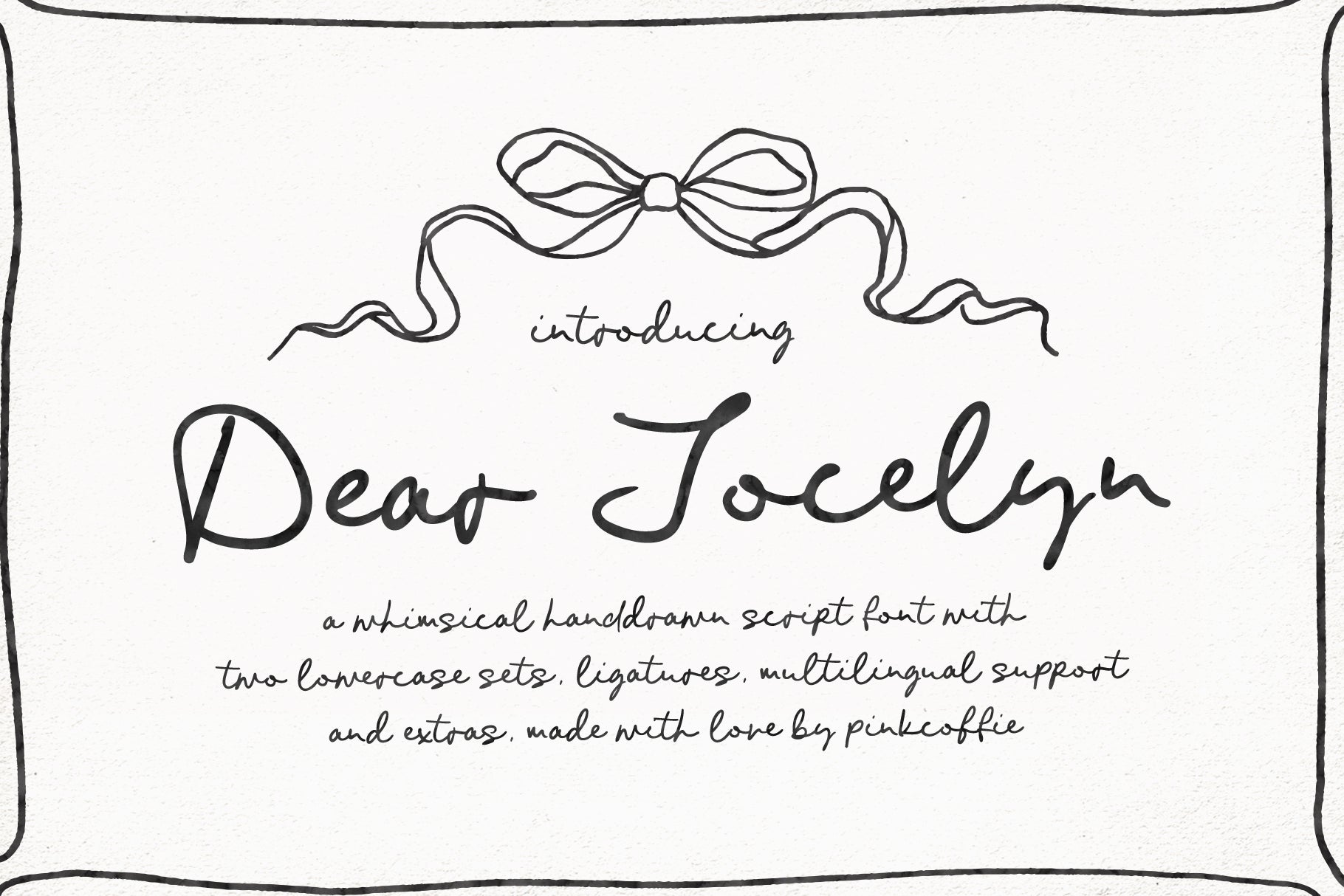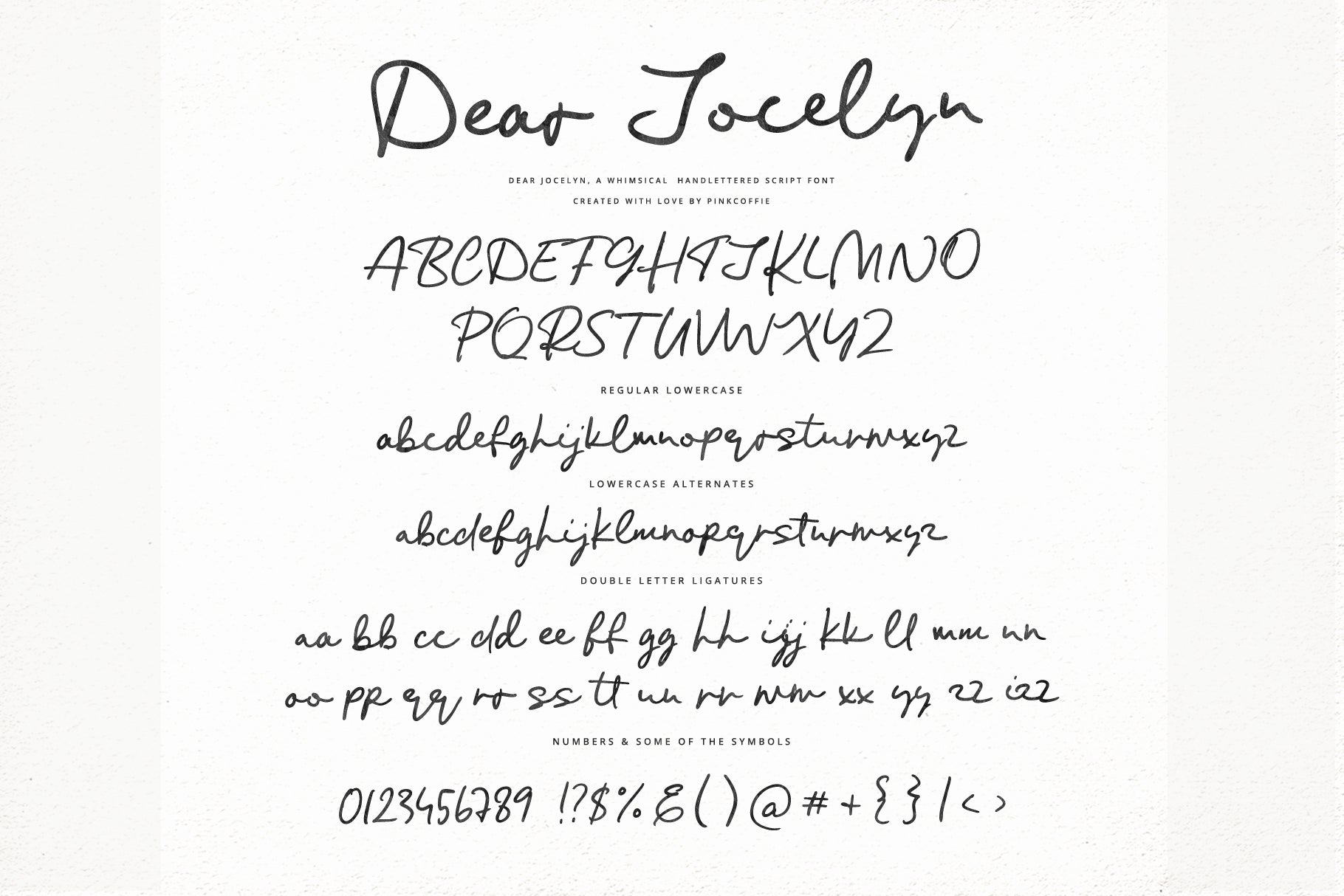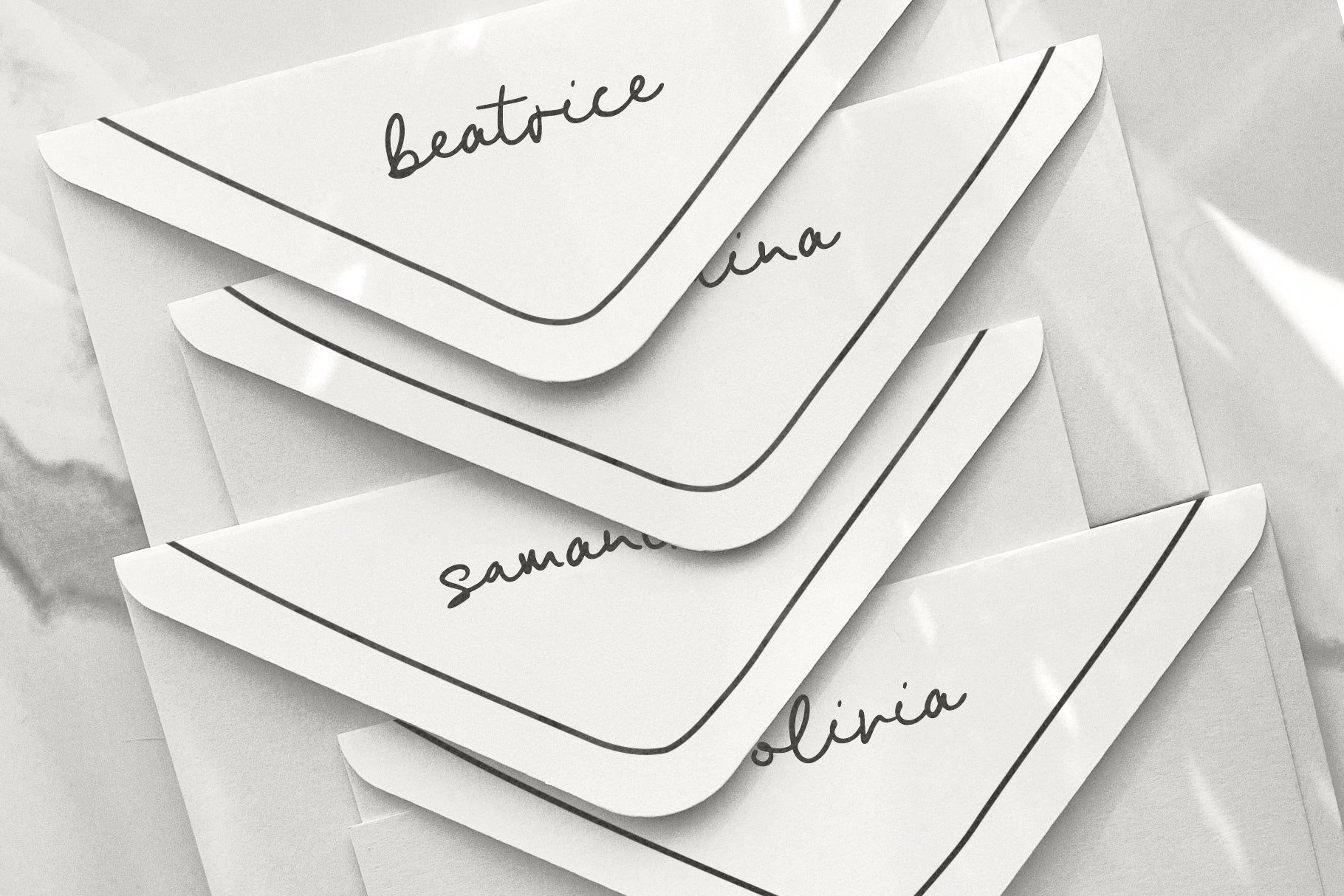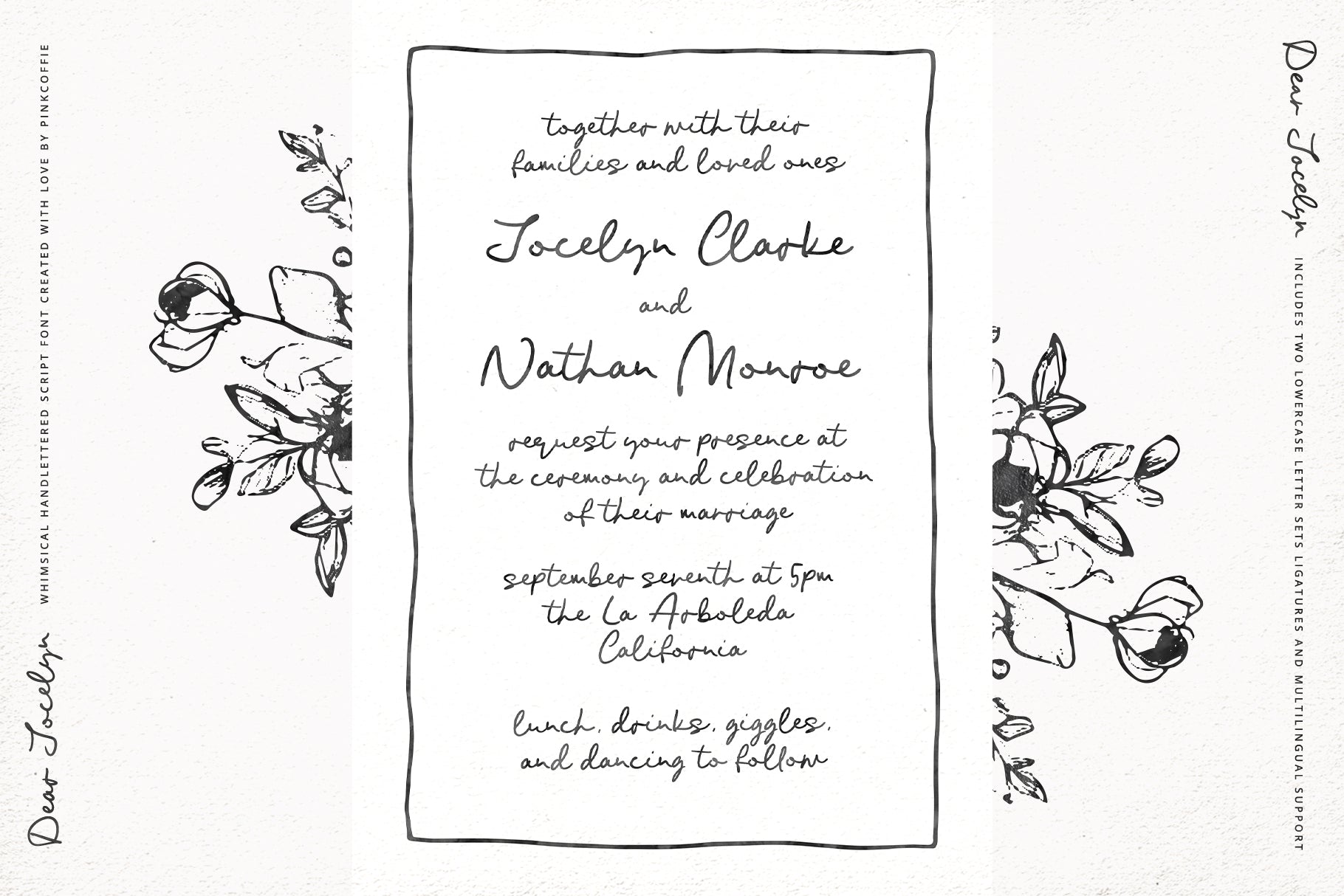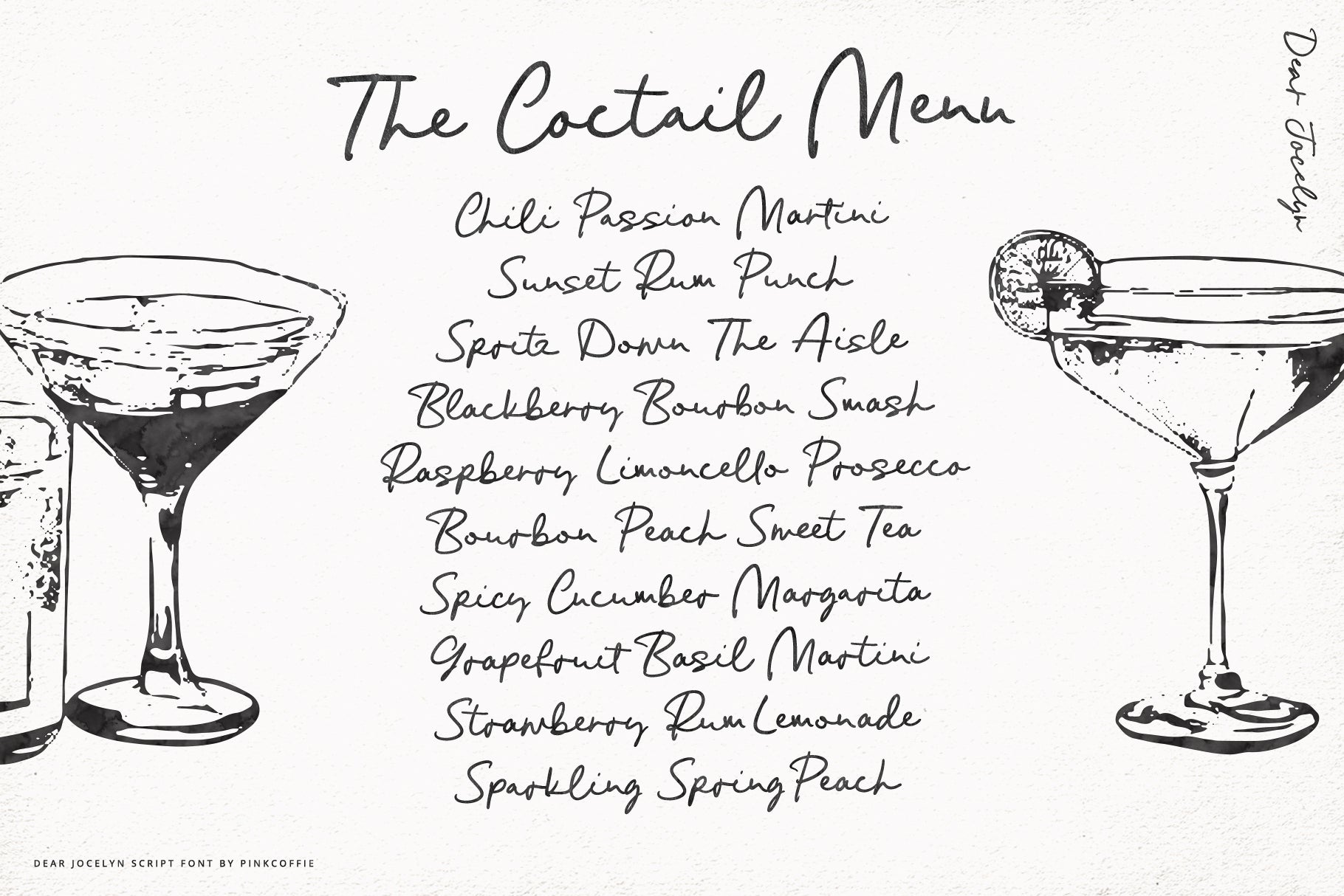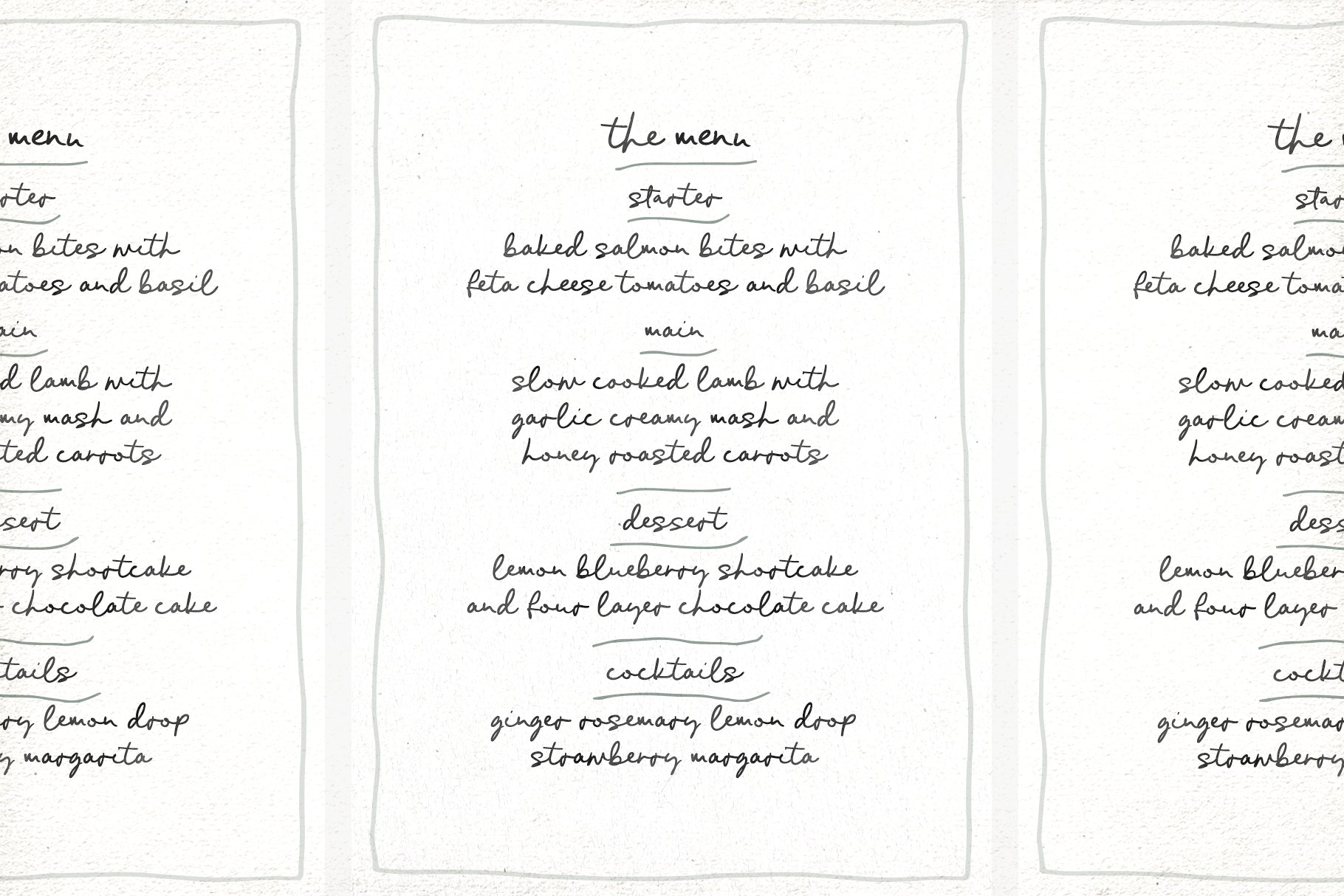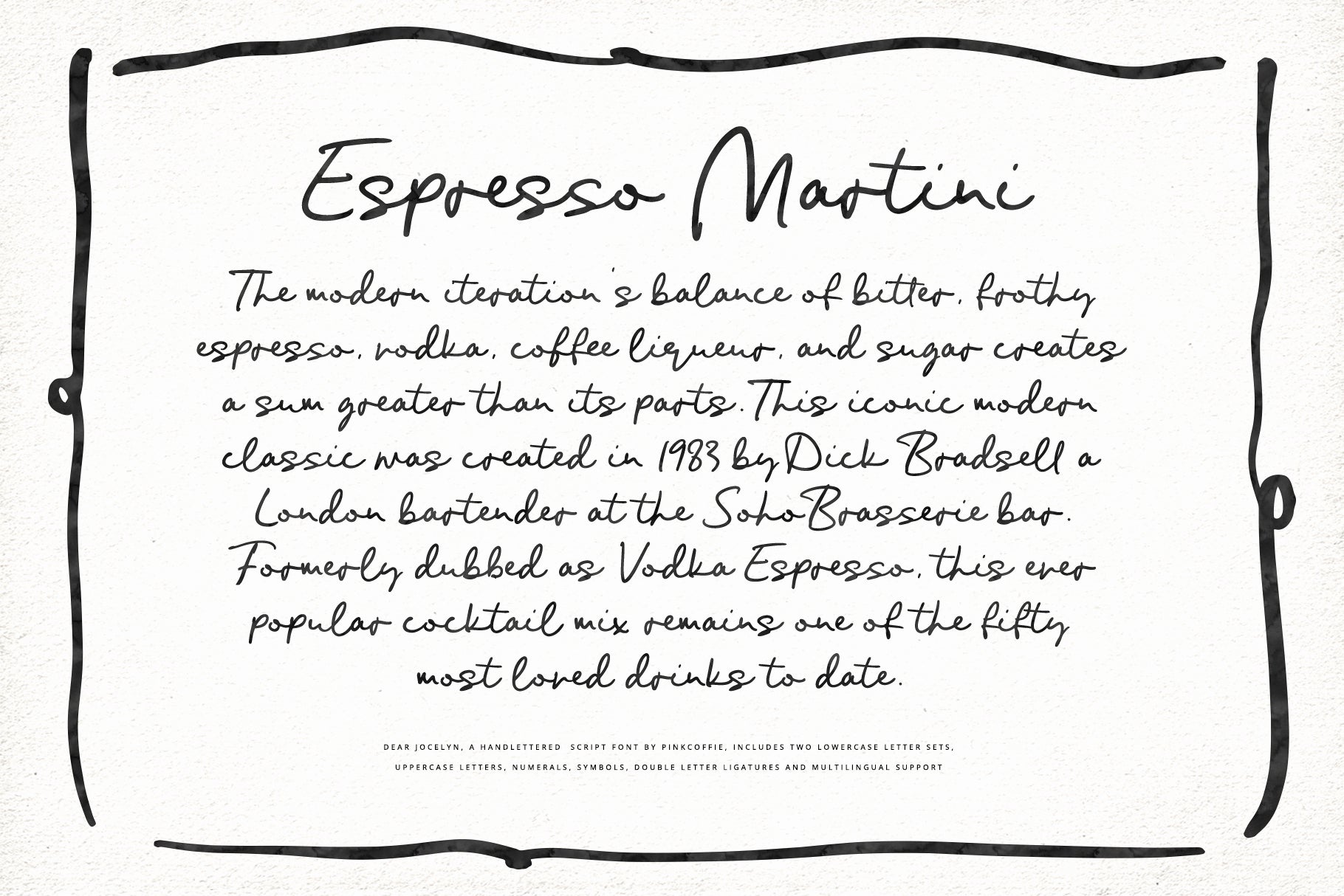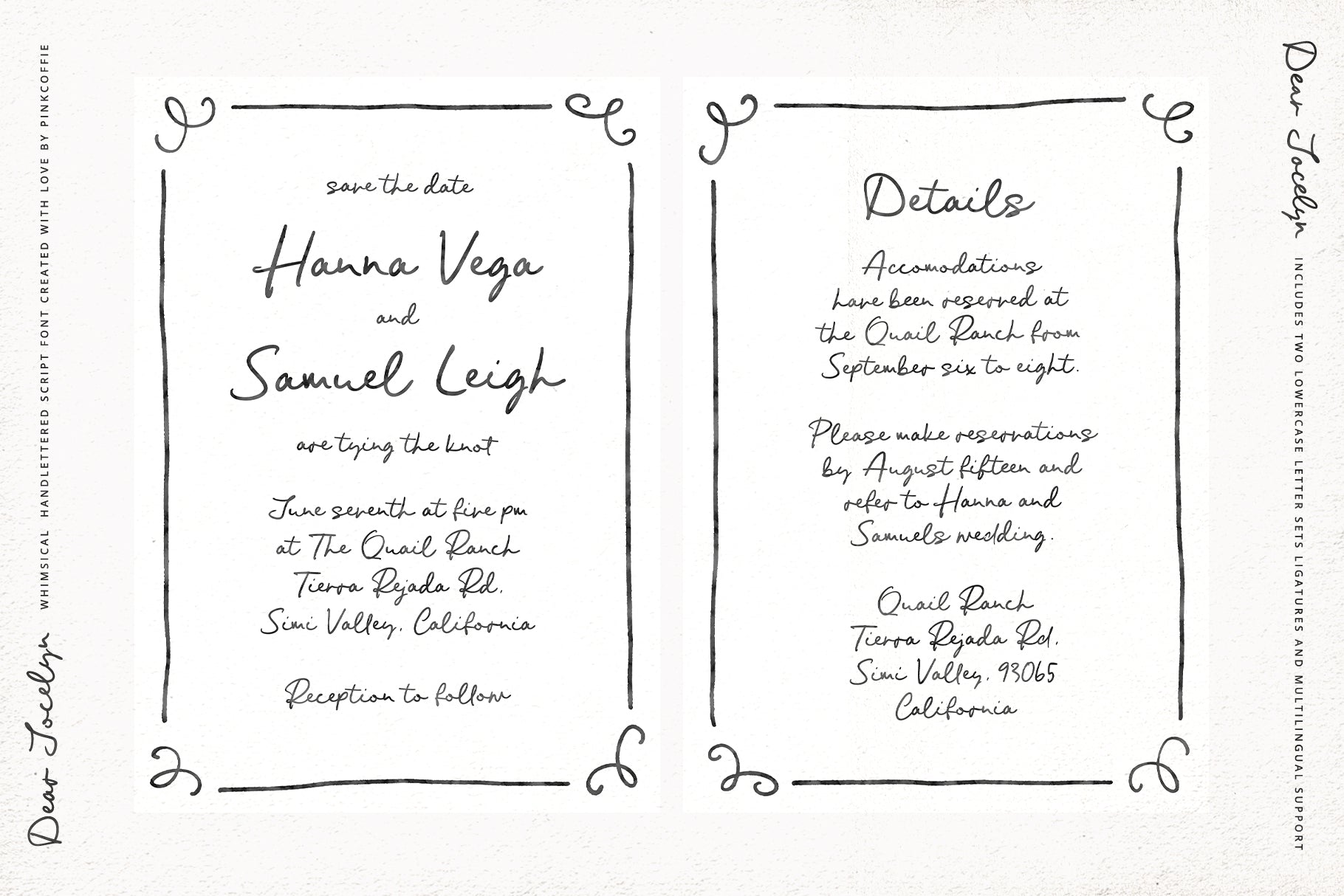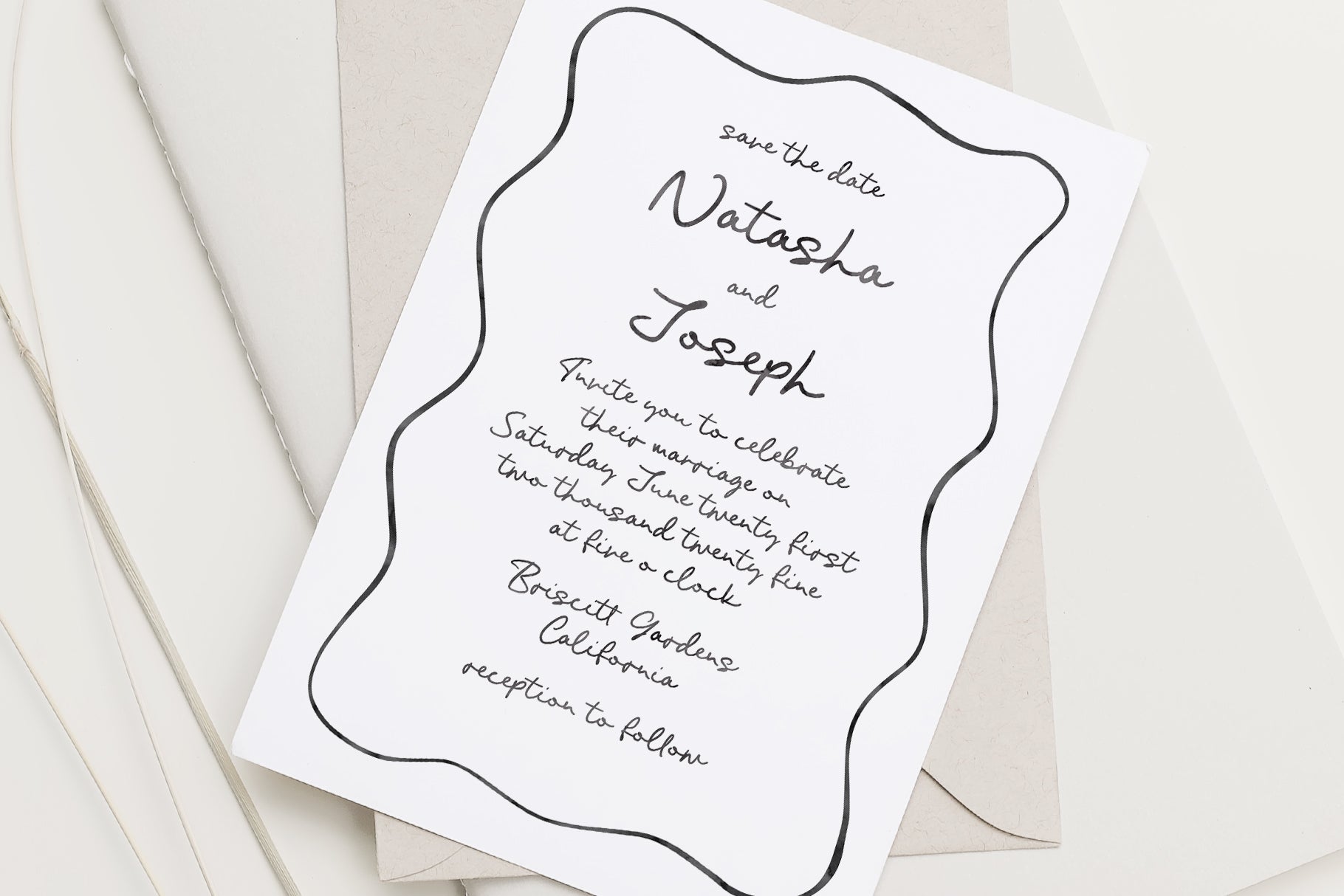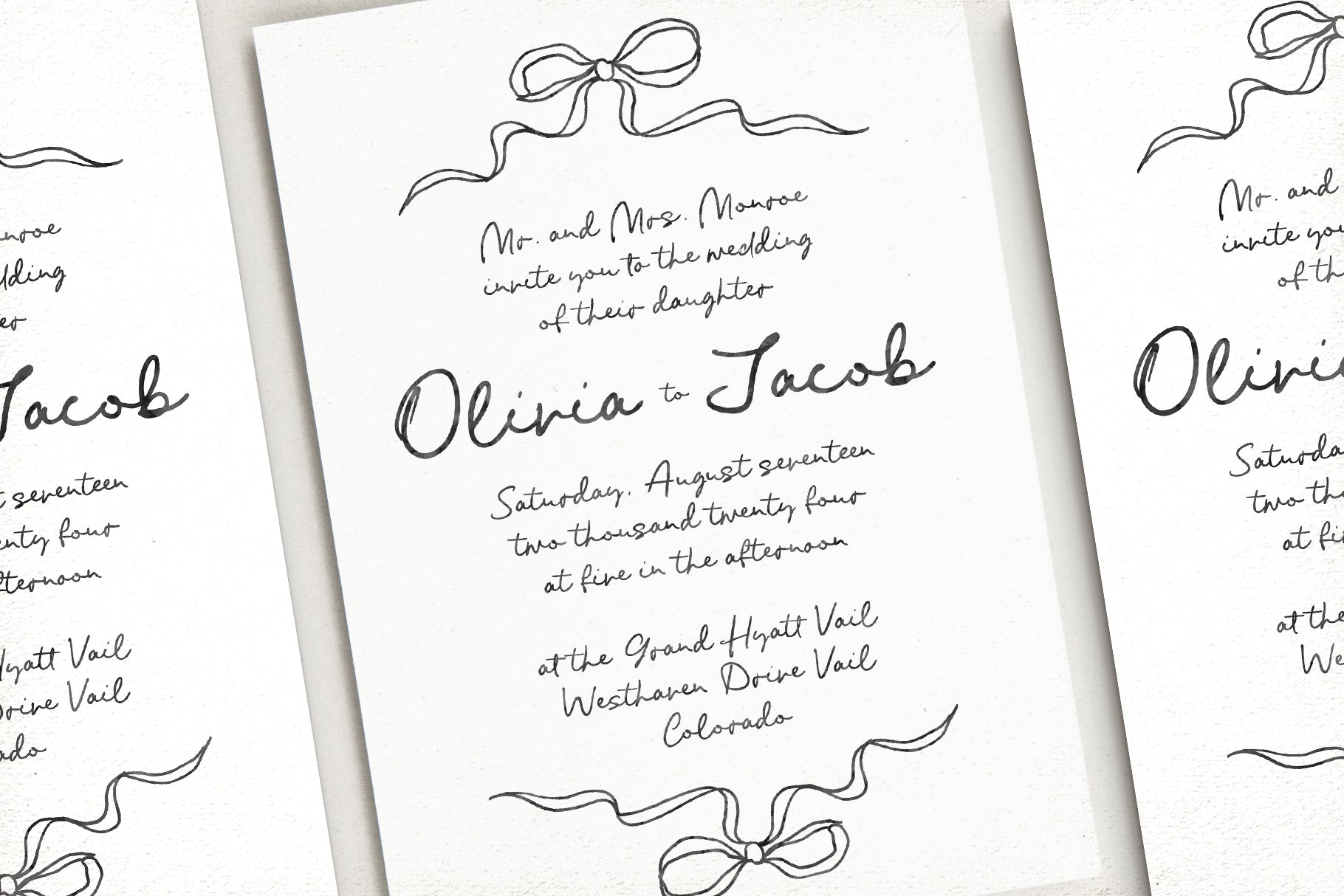
Say hello to Dear Jocelyn, a whimsical handlettered script font inspired by quirky handmade wedding invitations, playful modern art prints, French finds, and a modern-chic parisienne vibe.
Dear Jocelyn is super versatile and can be used for a variety of projects including wedding stationery, bridal shower Invitation templates, birthday invitations, printables, planners, seating charts, save the dates, wedding websites, prints, apparel, journals, website themes, branding, logos, and much, much more!
- Dear Jocelyn - the main font containing all OpenType features such as stylistic alternates and double letter ligatures.